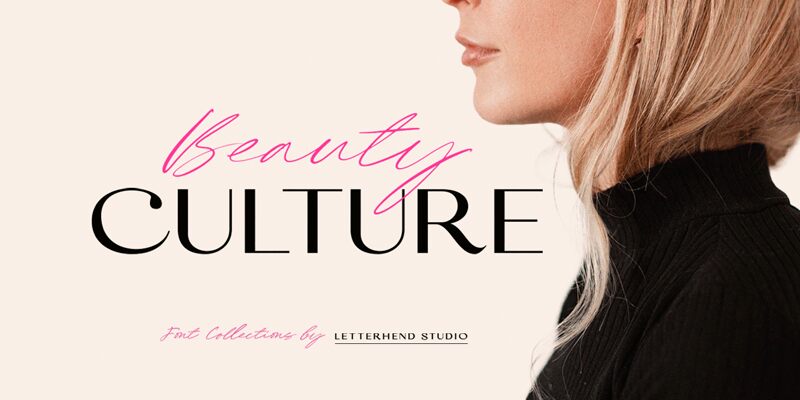
BeautyCultureSansDemo
Beauty Culture Sans is the perfect font for your creative projects. Designed by Letterhend Studio, this wide sans serif font will add a modern and elegant touch to any design. Use it to create logos, posters, websites or printed material that stands out from the crowd. It is also perfect for creating magazine covers and book titles that demand attention.